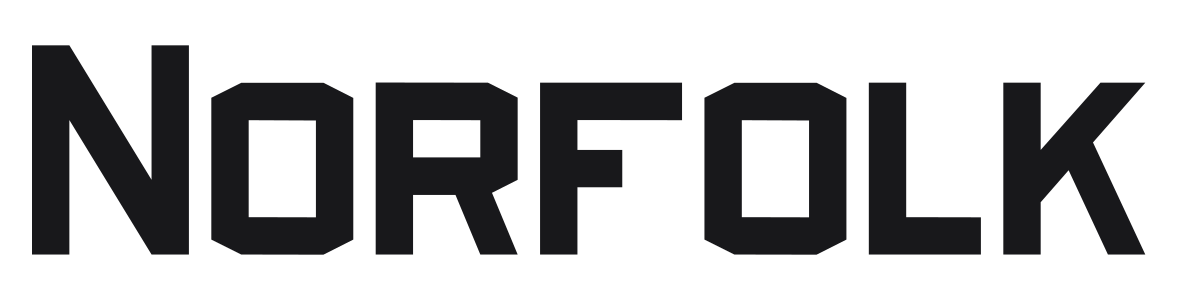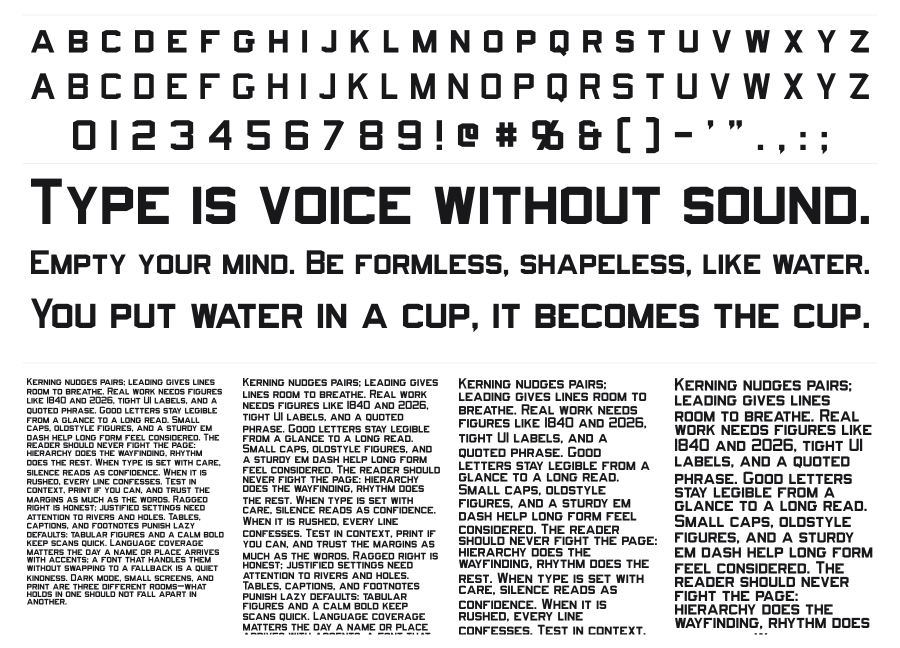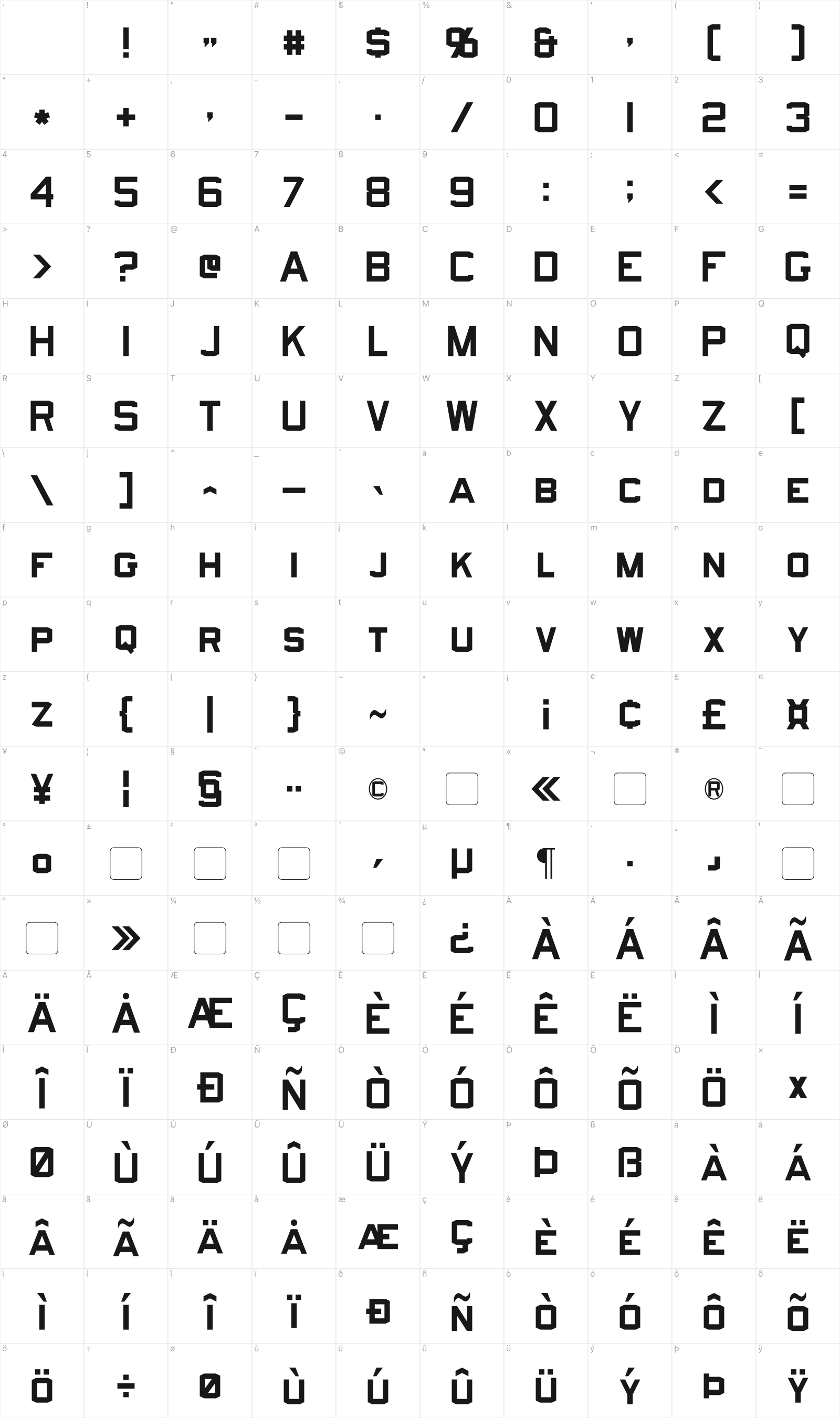
Norfolk
Norfolk is a heavy, blocky sans-serif from Pixel Sagas with a military stencil edge. Its wide, square characters and flat terminals give it a tough, utilitarian quality that works well for sports branding, game titles, and industrial-flavored headlines. The uniform weight and angular construction keep it bold and legible at large sizes.